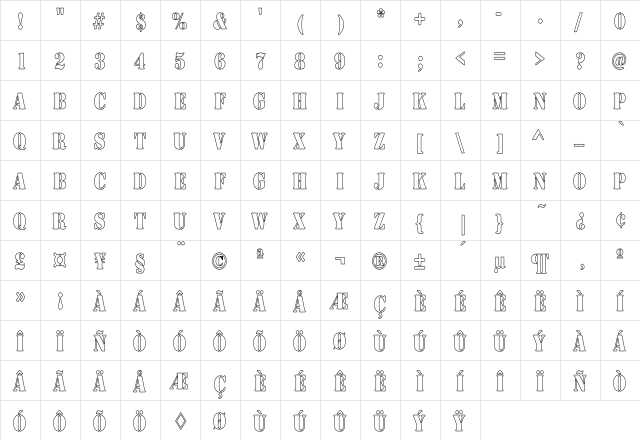
Army Hollow Thin Regular
Design Context for Army Hollow Thin Typeface
Army Hollow Thin has the no-nonsense character of military stencilling and tactical signage, projecting authority and directness. Its slender proportions lend an understated elegance to any composition.
Designed for tactical branding, military-inspired apparel, action game UI, and utility-focused signage.
Pro Tip: Use Army Hollow Thin at medium-to-large sizes where its utilitarian structure can be appreciated — the character detail gets lost at small sizes.